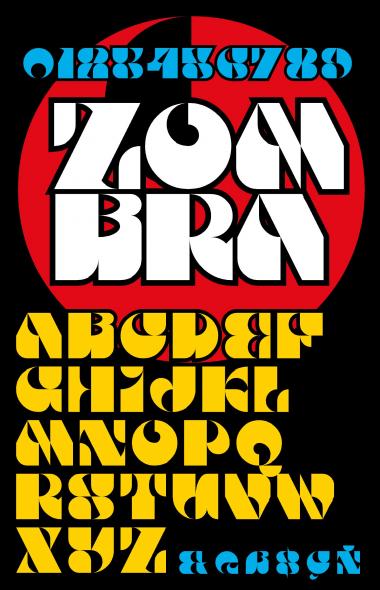
• My personal approach to my loved great font "Motter Ombra" (created in 1973 by the austrian designer Othmar Motter -born 1927, died December 17, 2010-. You can find the original here: http://www.motterfonts.com/en/schriften/info/id/35/
My personal approach to my loved great font "Motter Ombra" (created in 1973 by the austrian designer Othmar Motter -born 1927, died December 17, 2010-. You can find the original (and much more) here: Othmar Motter
P.S.: Some glyphs and the accents need a little second point of view. Suggestions are welcomed.
I just imagine how happy you would have been 40 years ago! Excellent derivation, much more "psychedelic" than the original
A great design - shows up well in your fantastic sample. Love it! 10/10
This is totally cool.
Quite angular yet has 'comforting' roundness. 10/10
As powerful as Motter Ombra. I even prefer some of your glyphs, such as M, N and Q.
When a masterpiece from the legendary, derived so, so well. 10++/10
Hey, Motter Ombra, even long before I knew the name, this font so familiar to me. As it featured on a widely-known tea product on my country named 'Teh Kotak' (translt. : 'Box-Served Tea'). Wow, such a legendary.
Awesome! I really like the A, O, X and $. The whole design is very cool.